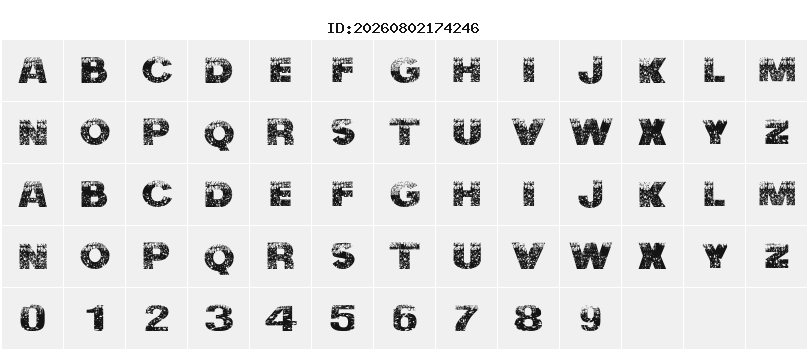
• Font Name: Nuclear Accident
• Full Font Name: Nuclear Accident
About Nuclear Accident.ttf
Nuclear Accident.ttf is a modern, elegant sans-serif font designed for ultimate readability and visual harmony. Perfect for branding, headlines, web design, and print materials.